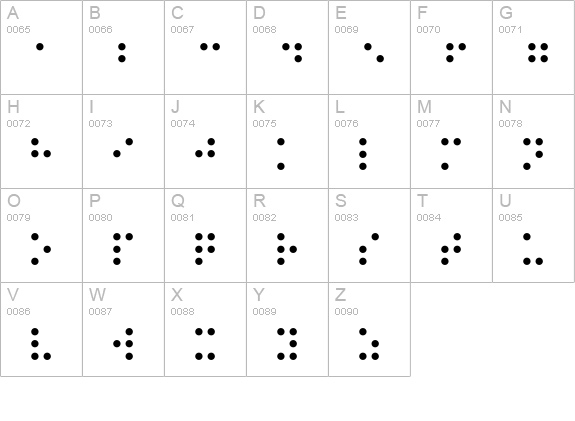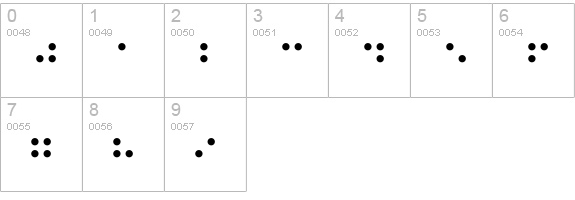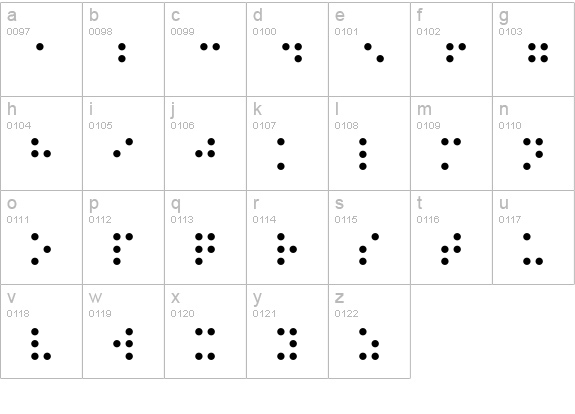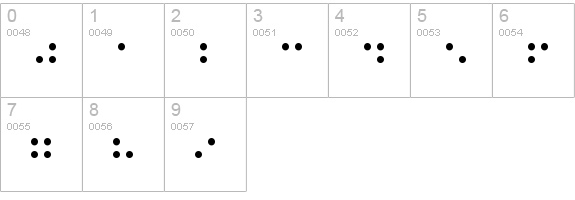
BrailleEF-Regular Font Details
BrailleEF-Regular is the standard, neutral variant in the BrailleEF typeface family \xE2\x80\x94 well suited to general body text, paragraphs, and standard typographic work.
BrailleEF-Regular is a beautifully designed font that is both functional and visually appealing. This font is specifically crafted to be easily readable by those with visual impairments, making it an essential tool for creating accessible content. With its clear and distinct characters, BrailleEF-Regular ensures that information is effectively communicated in a tactile way. Best of all, BrailleEF-Regular is available for free download at FontsMarket.com. This means that anyone can access this valuable font at no cost, making it a fantastic resource for designers, educators, and individuals looking to improve accessibility in their projects. Don't miss out on the opportunity to enhance your work with this versatile and user-friendly font. Download BrailleEF-Regular today and start creating inclusive and impactful designs!